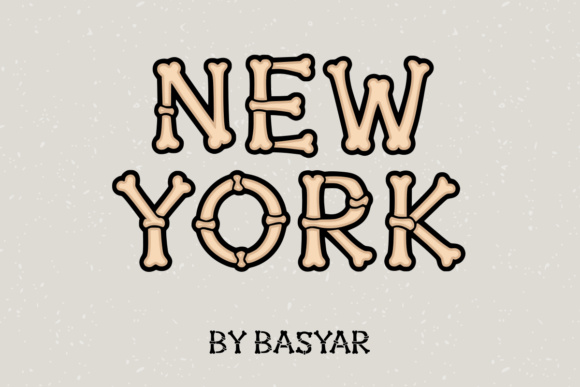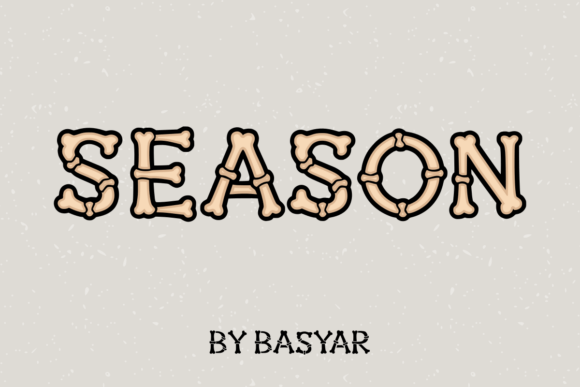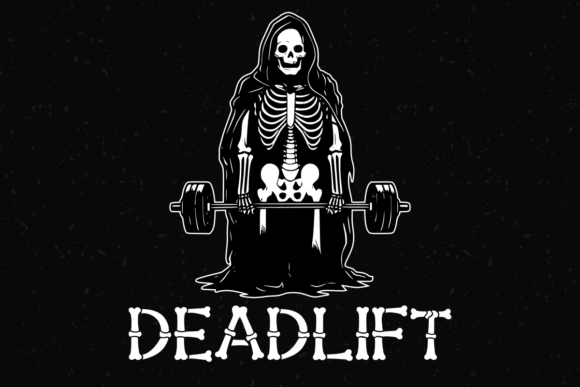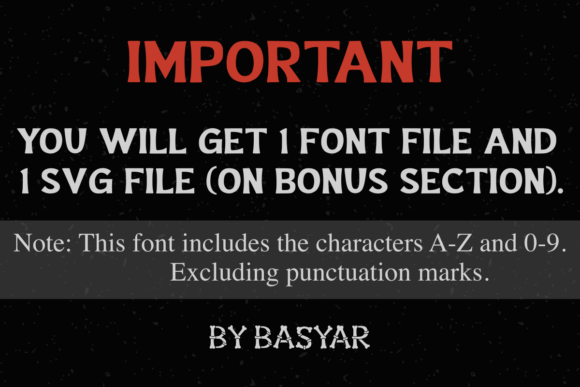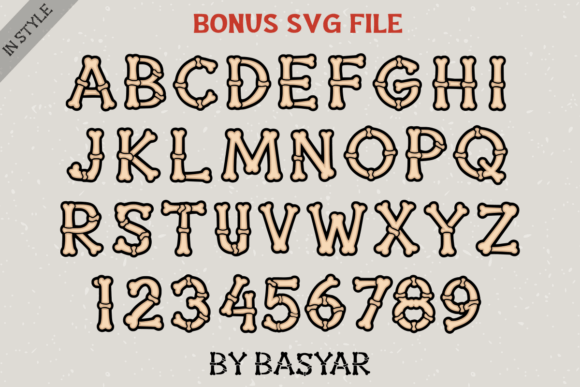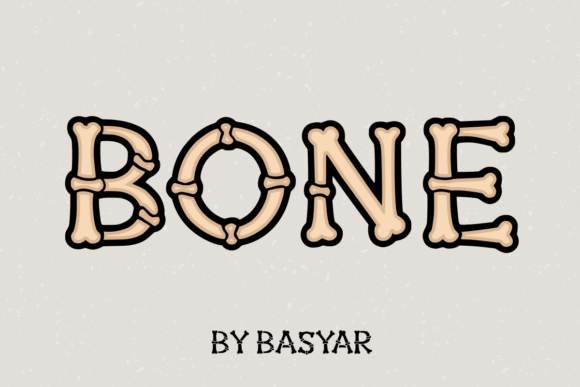
Bone Font: The Ultimate Spooky Display Font for Halloween and Horror Graphics
Are you looking for a font that adds a touch of spookiness and playfulness to your designs? Look no further than Bone Font, a unique display font that features letters and numbers crafted to resemble realistic bone structures. Perfect for Halloween themes, horror graphics, or any project that needs a playful but eerie touch, Bone Font is sure to bring a distinct, bone-chilling vibe to your designs.
What is Bone Font?
Bone Font is a spooky and fun display font that is designed to add a touch of skeletal style to your designs. With its unique, bone-like structure, this font is perfect for creating eye-catching posters, invitations, t-shirts, and digital designs that require a playful but eerie touch. Whether you’re designing for Halloween, a horror movie night, or a gothic-themed project, Bone Font is the perfect choice.
Key Features of Bone Font
- Unique Skeletal Style: Bone Font features letters and numbers crafted to resemble realistic bone structures, adding a touch of spookiness to your designs.
- Playful but Eerie: This font strikes the perfect balance between playfulness and eeriness, making it perfect for Halloween themes, horror graphics, and gothic aesthetics.
- Highly Versatile: Bone Font can be used for a wide range of design projects, including posters, invitations, t-shirts, and digital designs.
Uses for Bone Font
Bone Font is a versatile font that can be used for a wide range of design projects. Here are some ideas to get you started:
- Halloween Themes: Use Bone Font to create spooky posters, invitations, and digital designs for Halloween parties and events.
- Horror Graphics: Add a touch of eeriness to your horror graphics, including movie posters, flyers, and social media graphics.
- Gothic Aesthetics: Use Bone Font to create gothic-inspired designs, including posters, invitations, and digital designs.
- T-Shirts and Merchandise: Create eye-catching t-shirts and merchandise with Bone Font, perfect for horror fans and Halloween enthusiasts.
Tips for Using Bone Font
Here are some tips for using Bone Font in your designs:
- Experiment with Colors: Bone Font looks great in a range of colors, from bold and bright to dark and muted. Experiment with different colors to find the perfect look for your design.
- Pair with Other Fonts: Bone Font pairs well with other fonts, including sans-serif and script fonts. Experiment with different font combinations to find the perfect look for your design.
- Add Texture and Patterns: Add texture and patterns to your design to give it a more realistic and eerie feel.
Bone Font is a unique and versatile font that is perfect for designers and crafters looking to add a touch of spookiness and playfulness to their designs. With its skeletal style and highly versatile design, Bone Font is perfect for a wide range of design projects, from Halloween themes and horror graphics to gothic aesthetics and t-shirts. Whether you’re a seasoned designer or a crafty DIY enthusiast, Bone Font is sure to bring a distinct, bone-chilling vibe to your designs.